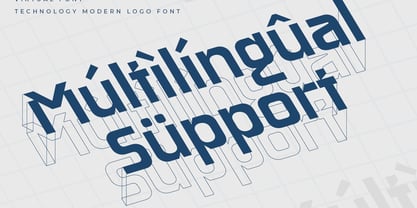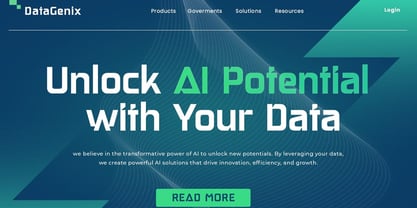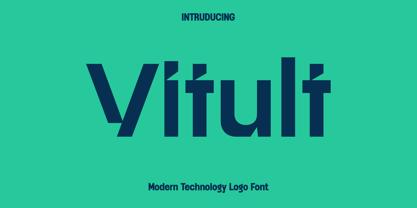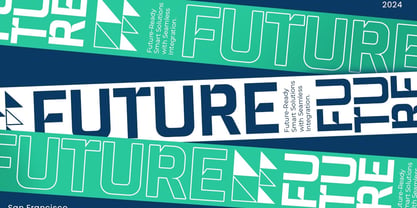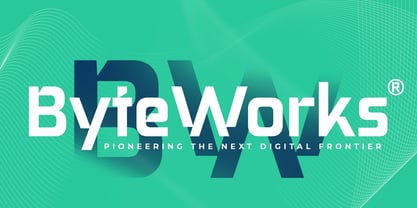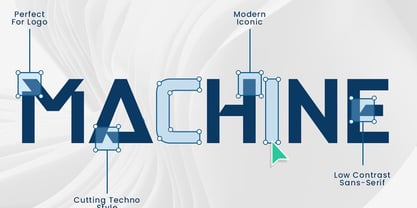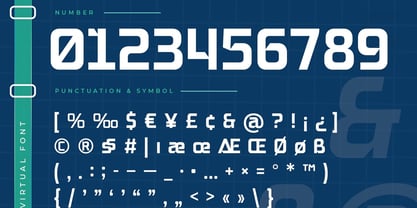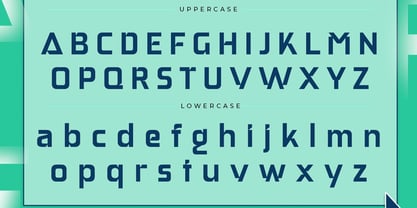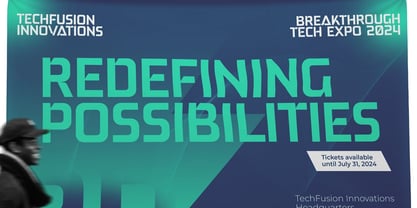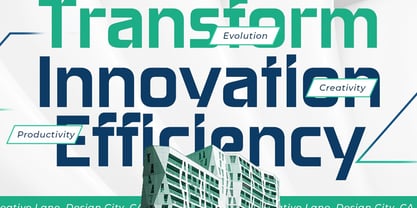
Vitult
Die Schriftfamilie Vitult wurde von Olivia Love entworfen und von Only Fonts veröffentlicht. Vitult enthält 1 Stile. Mehr über diese Familie
Vitult – Modern Technology Logo Font Vitult is a cutting-edge logo font designed for creators aiming to establish innovative, professional, and future-focused brand identities. Drawing inspiration from advanced technology, digital innovation, and clean geometric design, Vitult showcases sleek letterforms with balanced proportions that convey precision, intelligence, and modern sophistication. Each character is meticulously crafted to ensure a bold visual presence while maintaining exceptional readability in both print and digital media. Ideal for technology companies, AI startups, software brands, fintech businesses, mobile applications, web platforms, robotics, cybersecurity firms, digital agencies, electronics, product packaging, and corporate branding, Vitult transforms simple typography into a powerful statement of innovation. Its clean, futuristic appearance allows logos and headlines to stand out while preserving a polished and professional aesthetic. Designed with versatility in mind, Vitult features distinctive technology-inspired characters that provide designers with enhanced creative freedom when crafting custom logos and visual identities. Whether launching a startup, designing a technology product, or creating branding for a modern business, Vitult delivers the confidence, clarity, and originality necessary to make a lasting impression. With its premium craftsmanship and contemporary style, Vitult is an essential addition to any designer's font collection, offering the perfect blend of minimalism, functionality, and futuristic appeal for today's technology-driven brands. Vitult Font Features: • Unique technology-inspired characters • Modern futuristic logo style • Uppercase and lowercase letters • Numerals, punctuation, and symbols • Multilingual support • Perfect for technology, AI, software, startups, digital branding, websites, and product design • Suitable for both print and digital projects